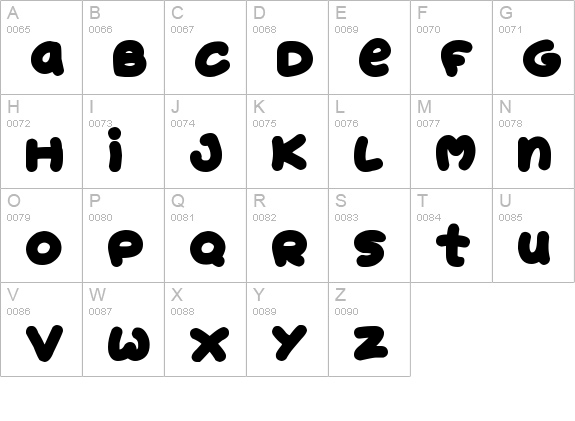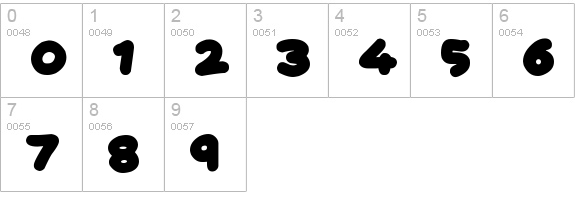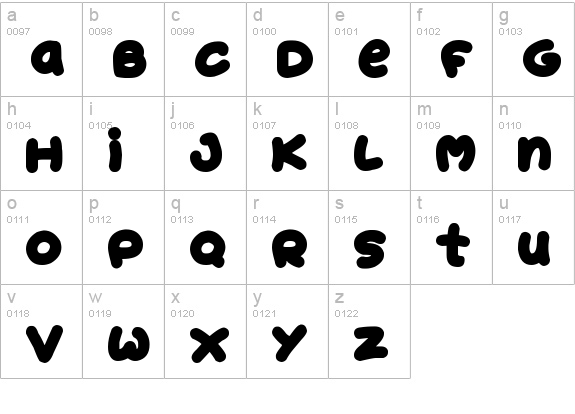
Jelly Donuts is a donationware font in the Fancy > Comic category, designed by Darrell Flood. It has been downloaded 99 times and is available for Windows, Mac and Linux.
Jelly Donuts font is a delightful and playful typeface that exudes a sense of whimsy and fun. With its round, bubbly letters and sweet charm, this font is perfect for adding a touch of warmth and personality to your designs. Whether you're working on a birthday invitation, a party poster, or a playful logo, Jelly Donuts font is sure to bring a smile to your audience's face.